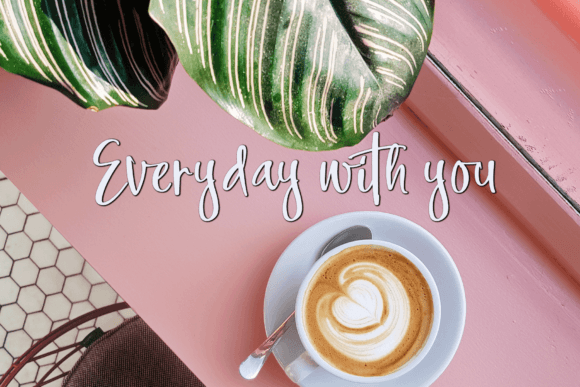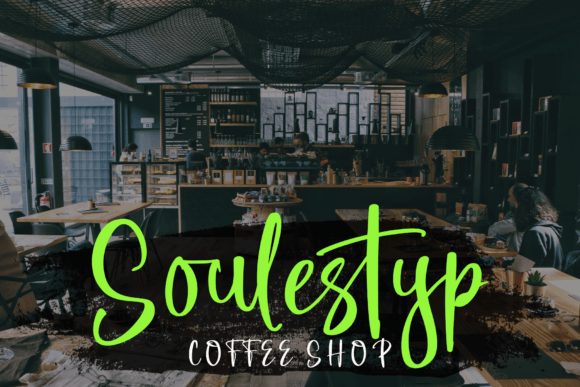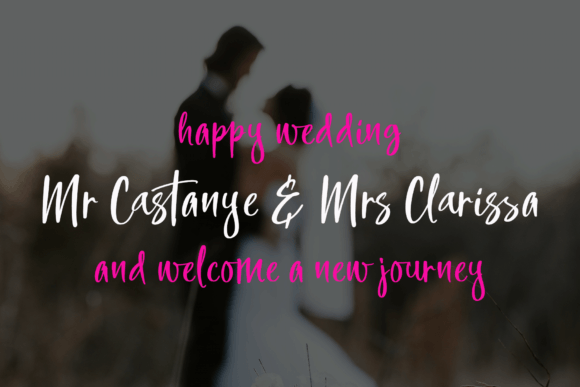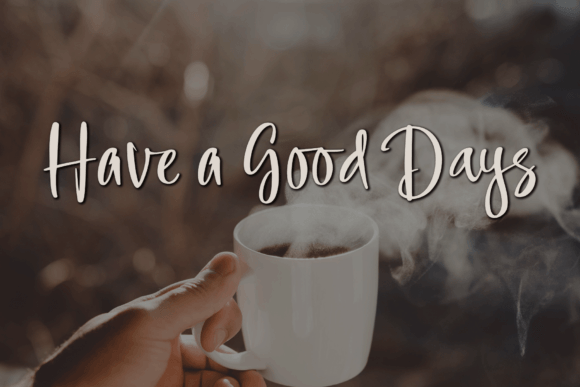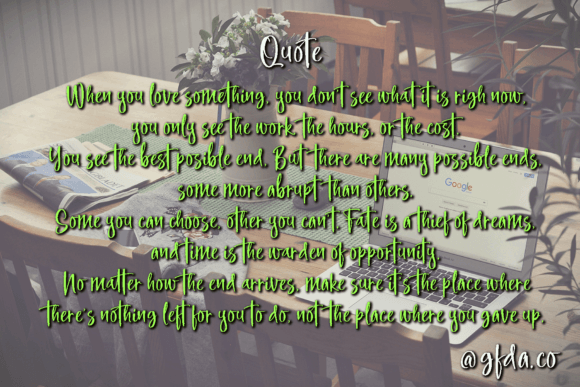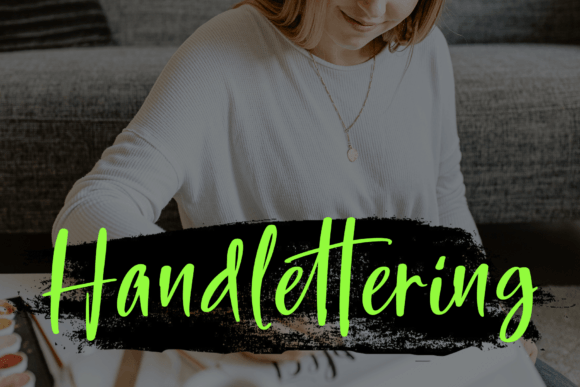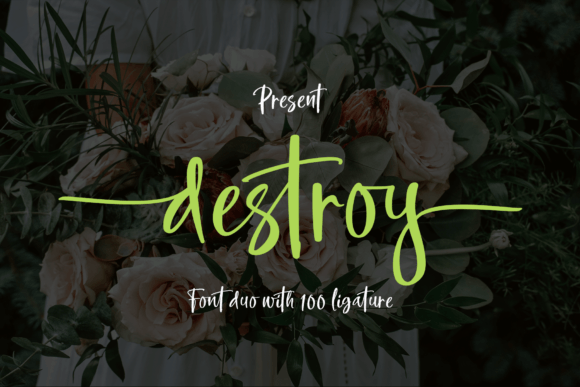
Introducing Destroy Font: A Modern Brush Feel Handwritten Font
Are you tired of using the same old fonts for your design projects? Look no further than Destroy Font, a handwritten font with a modern brush feel that’s perfect for adding a touch of personality to your work. In this article, we’ll take a closer look at Destroy Font, its features, and how you can use it to elevate your designs.
What is Destroy Font?
Destroy Font is a handwritten font designed with a modern brush feel. It’s perfect for designers and crafters who want to add a personal touch to their work. The font comes in two styles, giving you the flexibility to choose the one that best suits your project. Whether you’re working on a logo, branding, web design, or any other project, Destroy Font is a great choice.
Key Features of Destroy Font
- Modern Brush Feel: Destroy Font has a unique modern brush feel that gives it a distinctive look.
- Two Styles: The font comes in two styles, allowing you to choose the one that best fits your project.
- PUA Encoded: Destroy Font is PUA encoded, making it easy to access all the glyphs and swashes.
- Versatile: The font is perfect for a wide range of projects, including headings, blogs, logos, brandings, web design, cards, coffee shops, t-shirts, invitations, and more.
Benefits of Using Destroy Font
So, why should you choose Destroy Font for your next project? Here are just a few benefits of using this amazing font:
- Adds Personality: Destroy Font adds a personal touch to your designs, making them stand out from the crowd.
- Highly Versatile: Destroy Font can be used for a wide range of projects, making it a great addition to your font library.
- Unique Look: The modern brush feel of Destroy Font gives it a unique look that’s sure to grab attention.
Who Can Use Destroy Font?
Destroy Font is perfect for a wide range of designers and crafters, including:
- Graphic Designers: Graphic designers can use Destroy Font for logos, branding, and other design projects.
- Web Designers: Web designers can use Destroy Font for web design projects, including headings and body text.
- Crafters: Crafters can use Destroy Font for a variety of projects, including t-shirts, invitations, and cards.
- Bloggers: Bloggers can use Destroy Font for blog headings and body text.
Tips for Using Destroy Font
Here are a few tips for using Destroy Font:
- Experiment with Different Styles: Try out both styles of Destroy Font to see which one works best for your project.
- Use it for Headings: Destroy Font is perfect for headings, so try using it to add a touch of personality to your design.
- Pair it with Other Fonts: Destroy Font can be paired with other fonts to create a unique look.
| Font Name | Destroy Font |
| Author | Meutuwah |
Destroy Font is a modern handwritten font with a brush feel that’s perfect for adding a touch of personality to your designs. With its two styles, PUA encoding, and versatility, it’s a great addition to any font library. Whether you’re a graphic designer, web designer, crafter, or blogger, Destroy Font is a great choice for your next project. So, why not give it a try and see how it can elevate your designs?